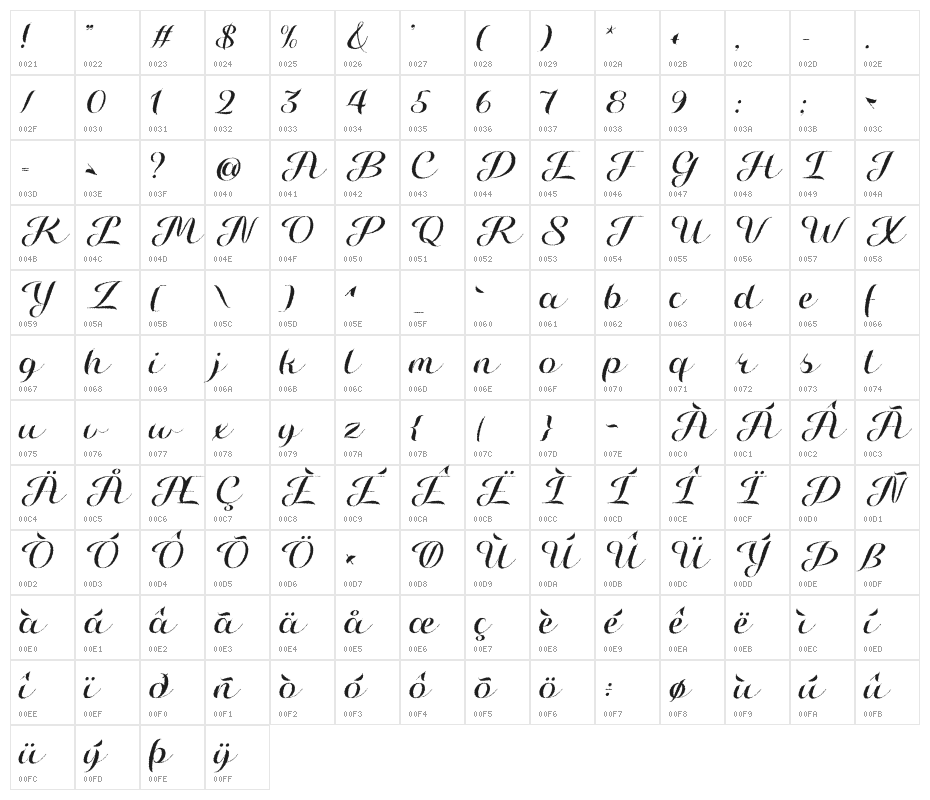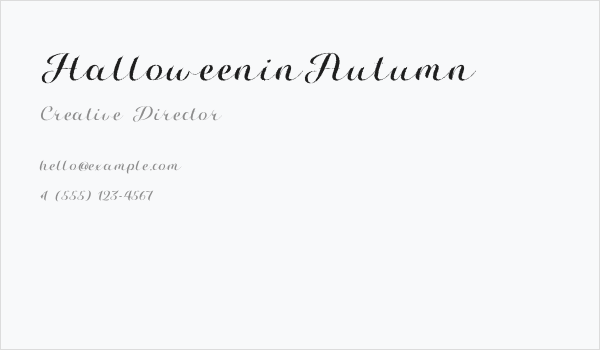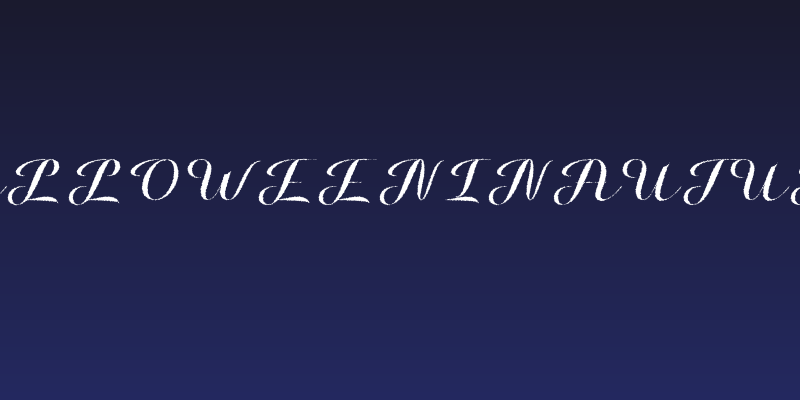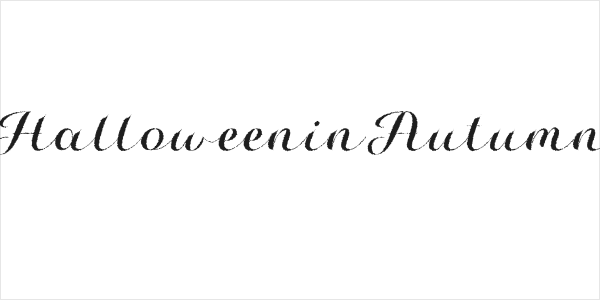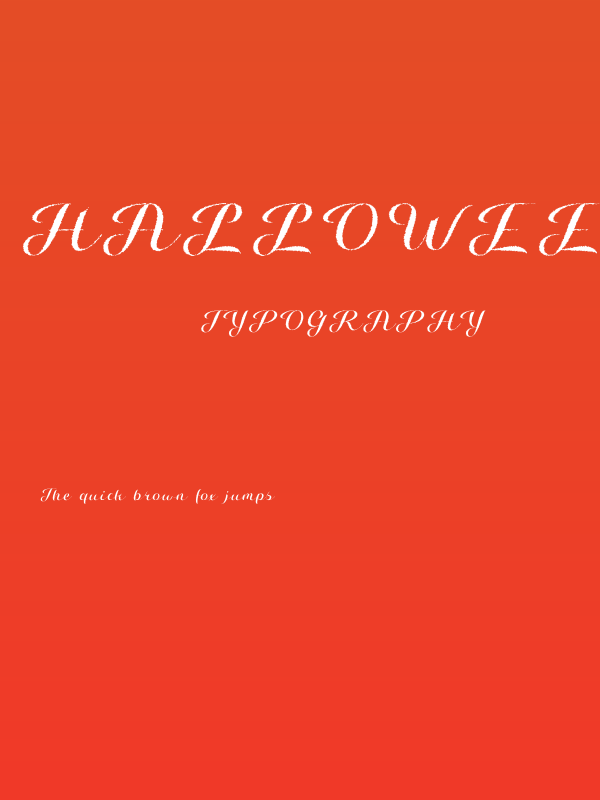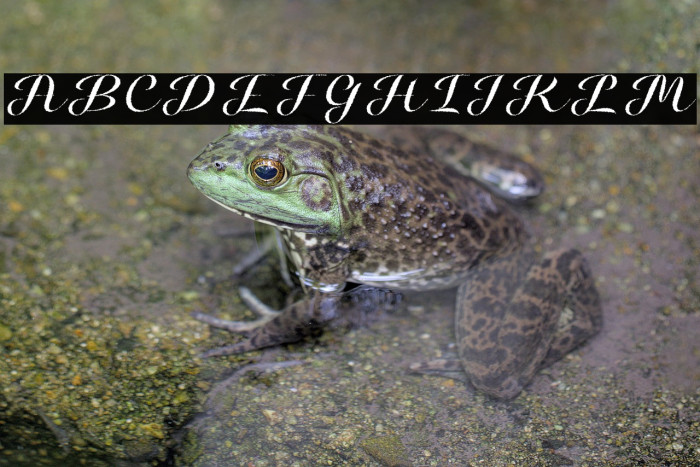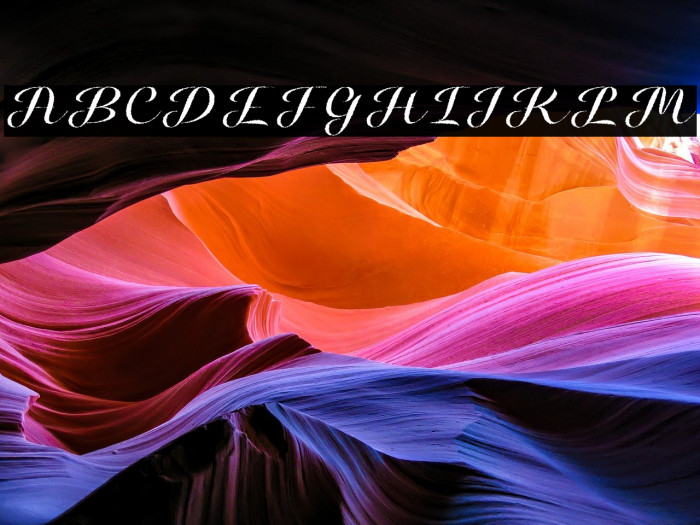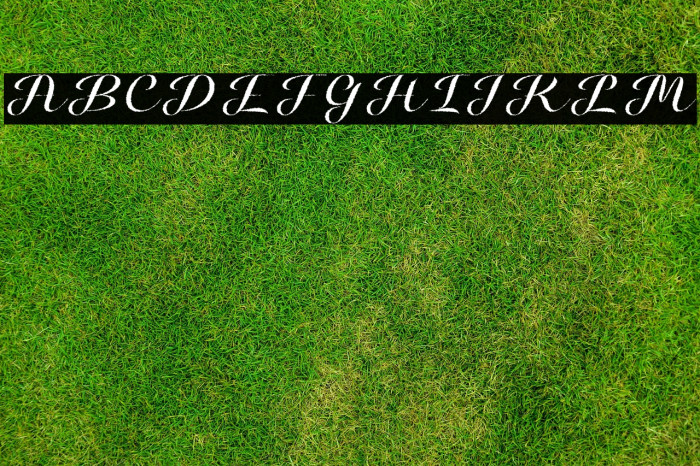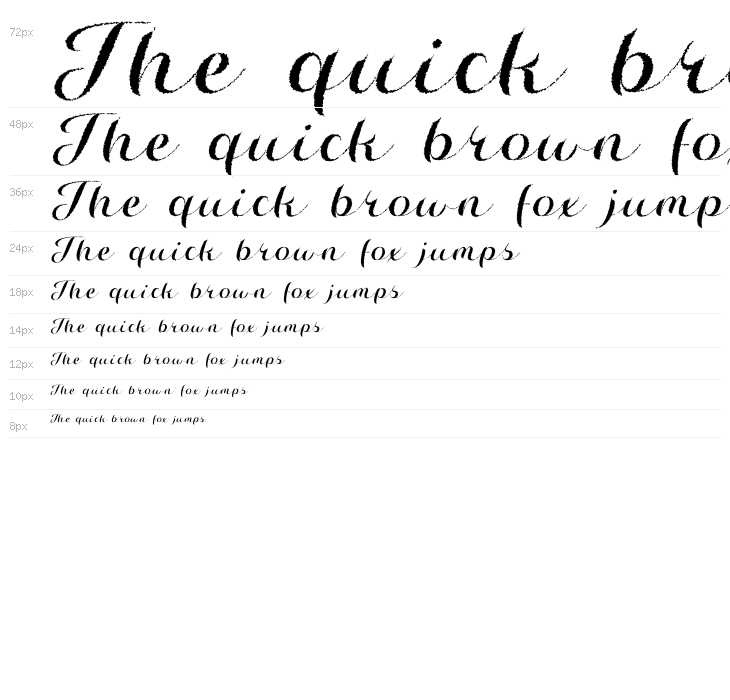
HalloweeninAutumn Font
HalloweeninAutumn Description
This font exudes elegance and sophistication with its flowing, cursive script style. The characters are gracefully connected, creating a seamless and fluid appearance. The uppercase letters are slightly more ornate, with delicate flourishes that add a touch of refinement. The lowercase letters maintain a consistent slant, enhancing the overall harmony of the typeface. The numerals are distinct yet complement the letterforms, while the special characters are thoughtfully designed to match the aesthetic. This font is perfect for projects that require a personal, handwritten touch, such as invitations, greeting cards, or branding materials.
| Overall Style | Elegant, Sophisticated |
| Use Case | Invitations, Branding, Artistic projects |
| Proposed Projects | Ideal for wedding invitations, elegant branding, personal stationery, and artistic projects. |